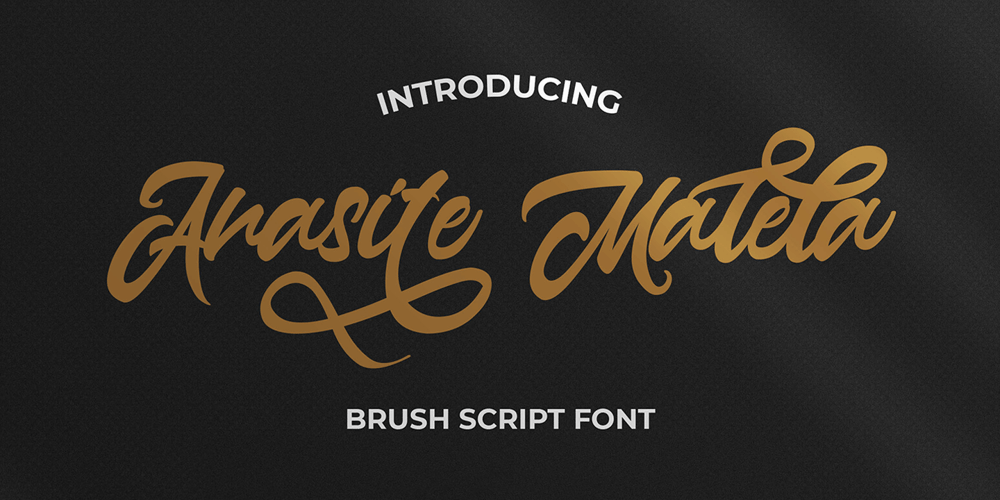
Anasite Malela Font Family was designed by Virgiawan Listanto and published by Stringlabs Creative Studio. Anasite Malela contains 1 styles and family package options. Anasite Malela is a bold script with groovy retro style. This font has a unique feel and you can use it to add that special retro touch to any design idea you can think of!